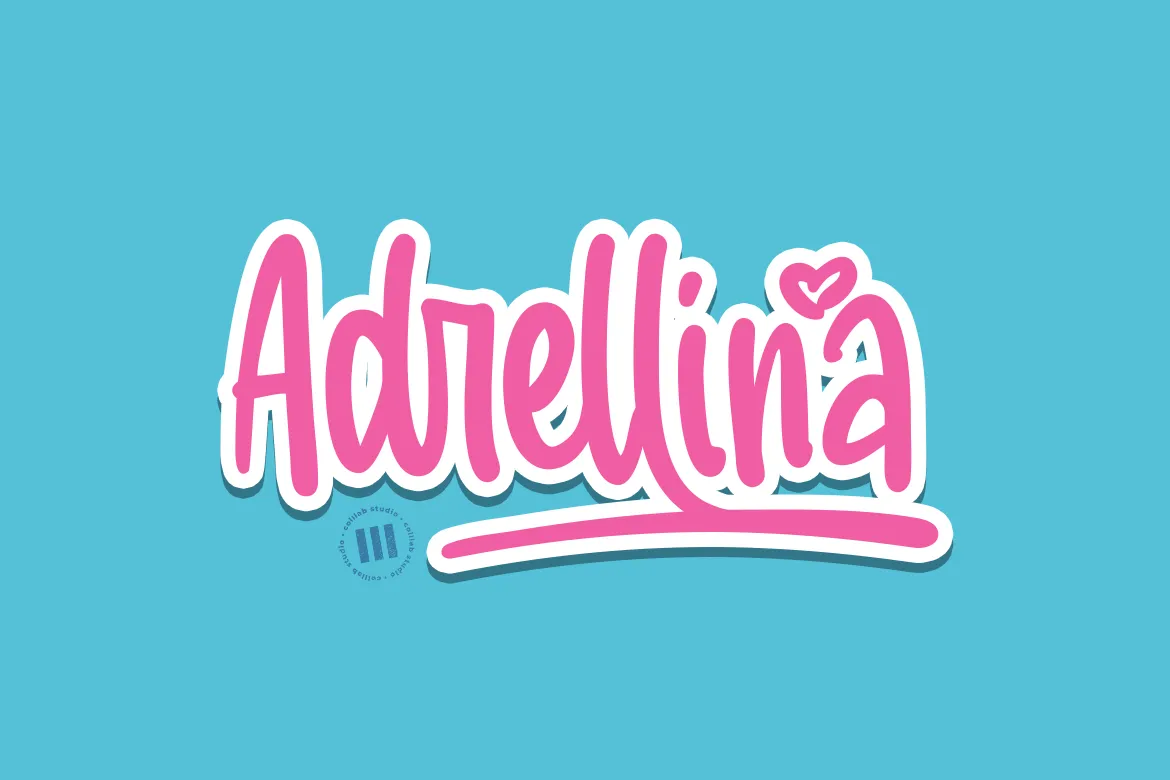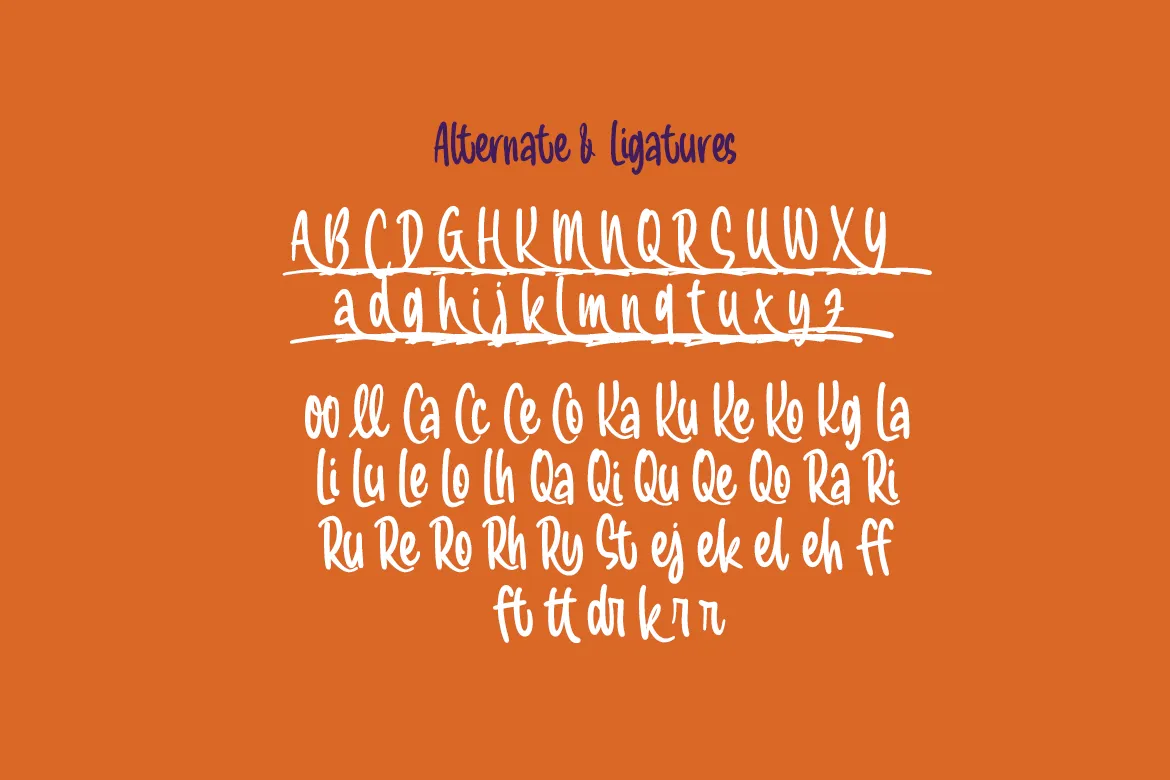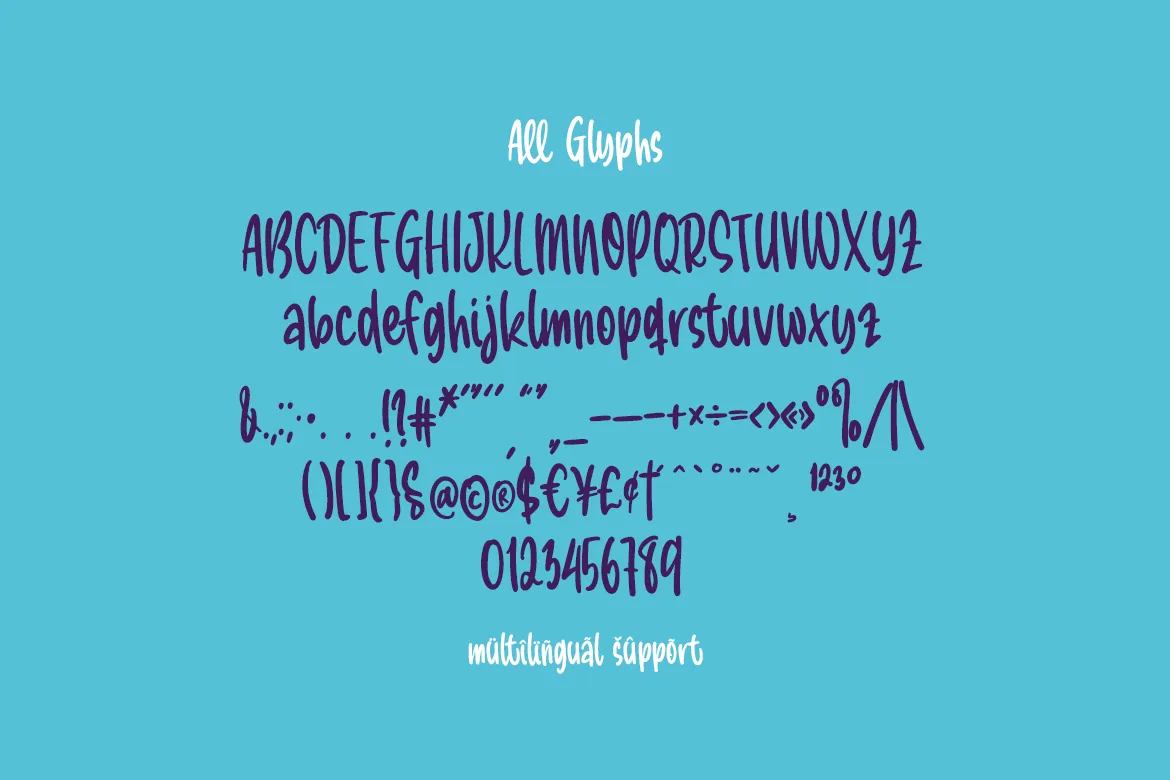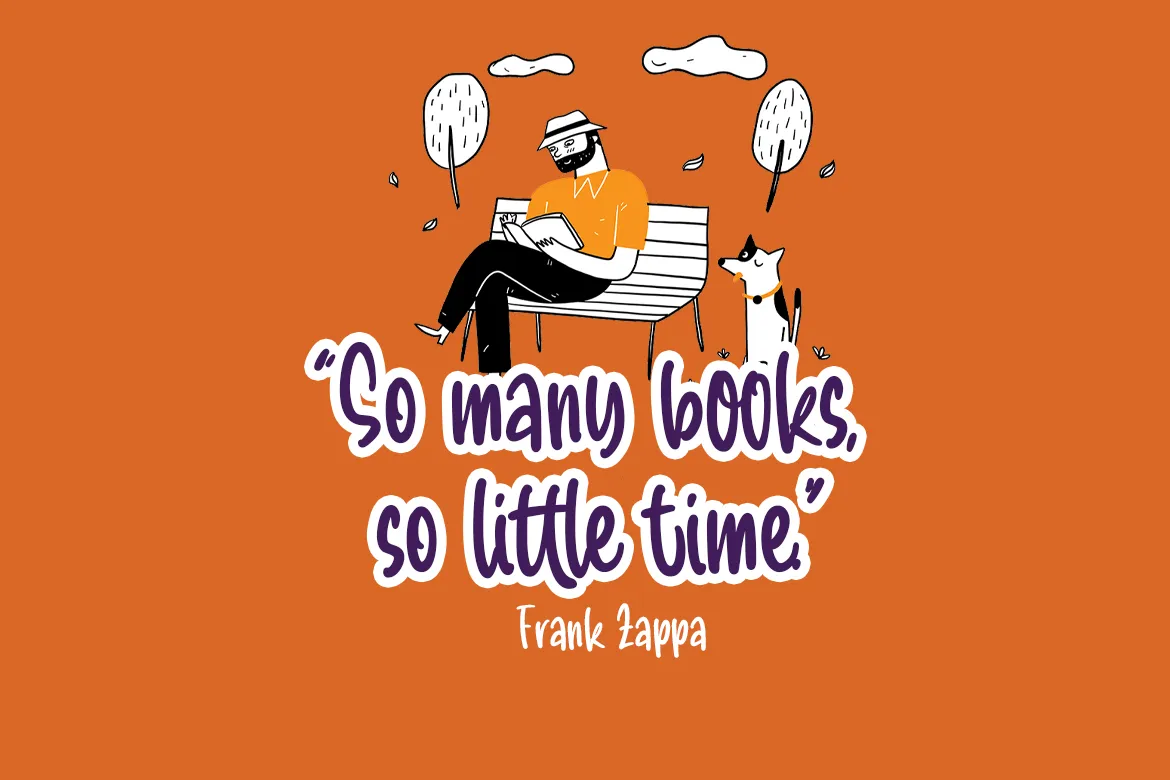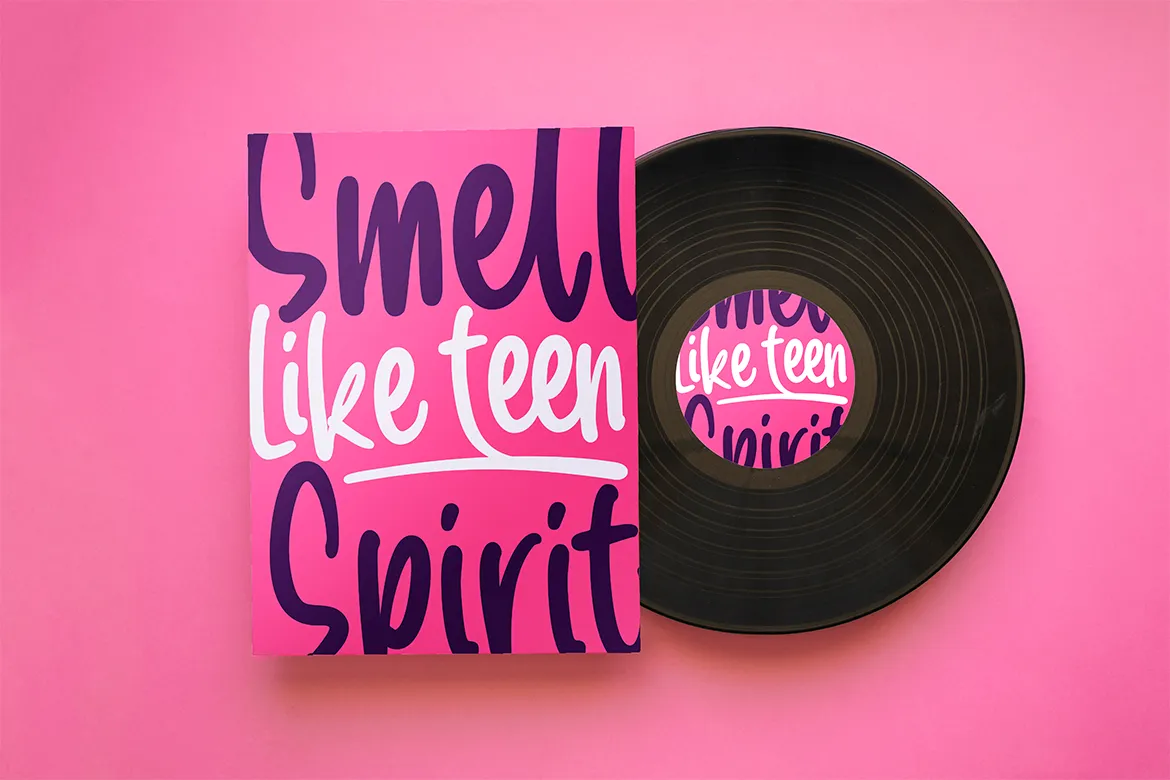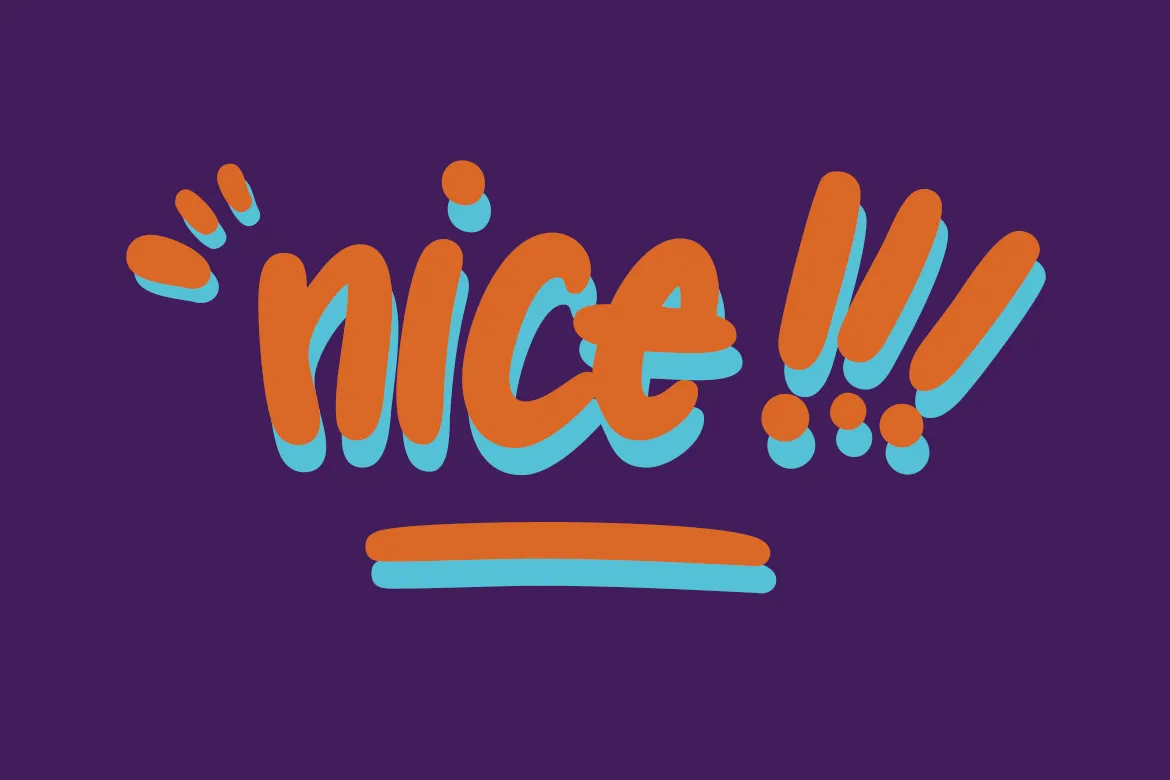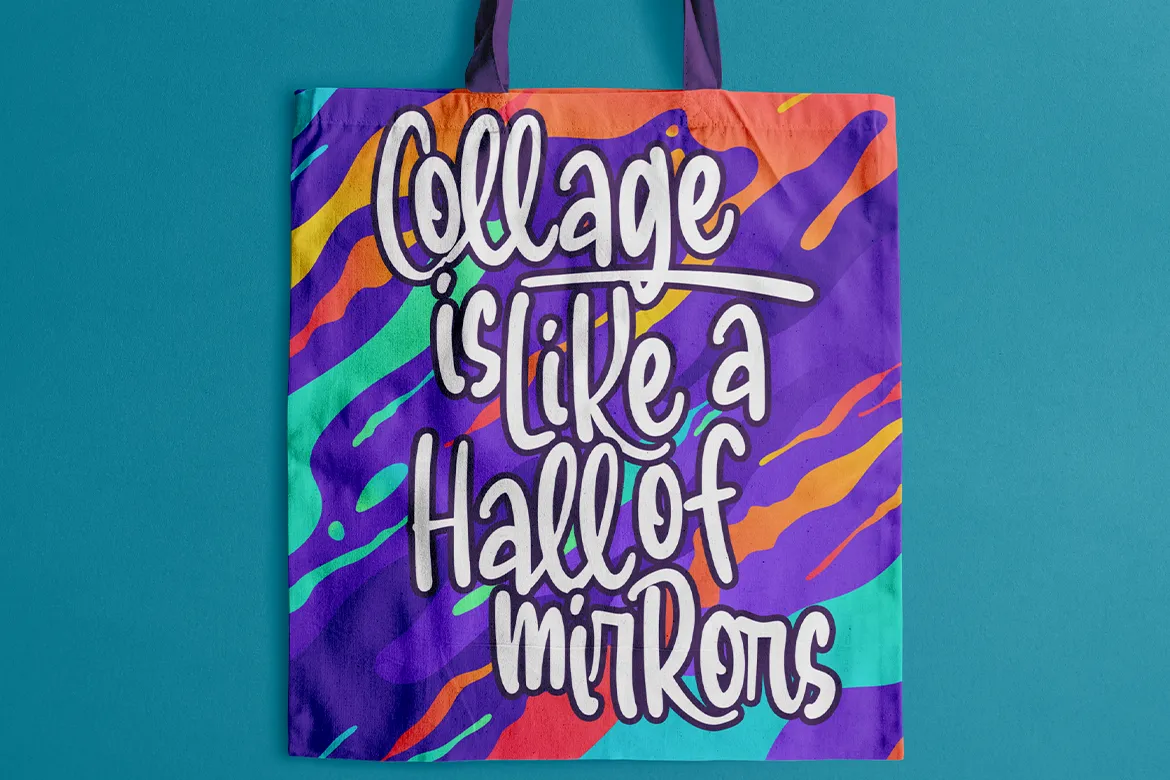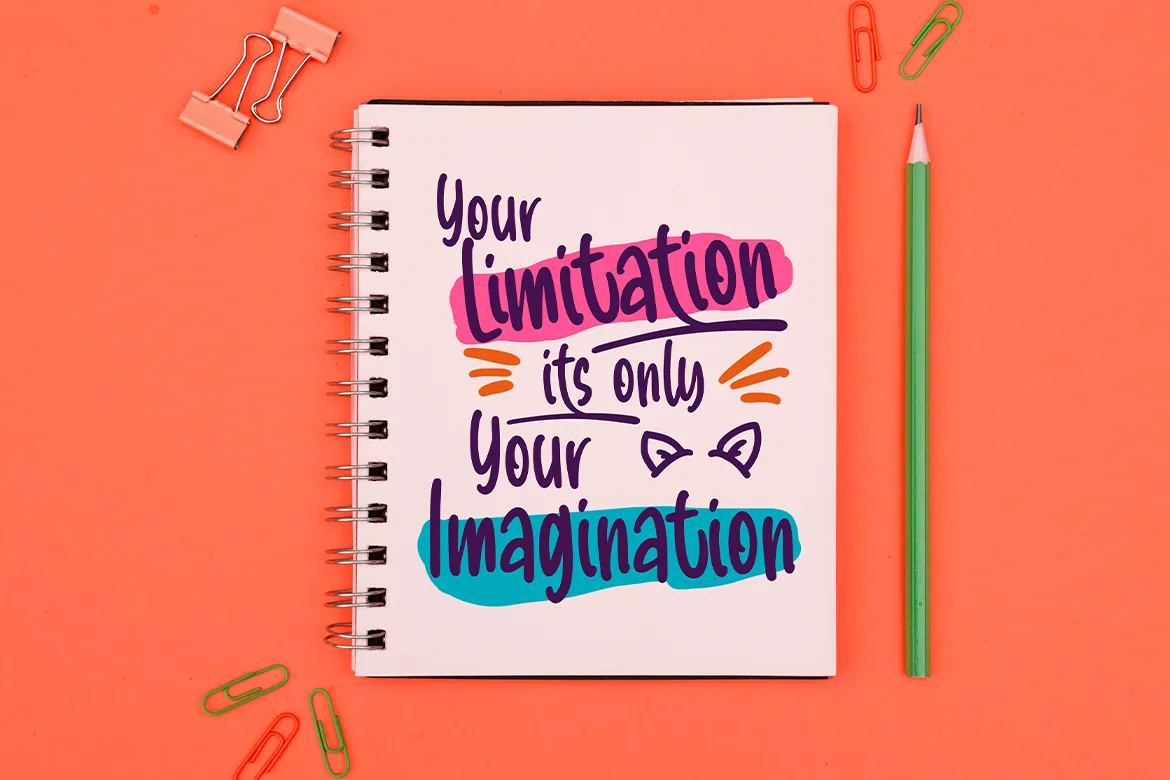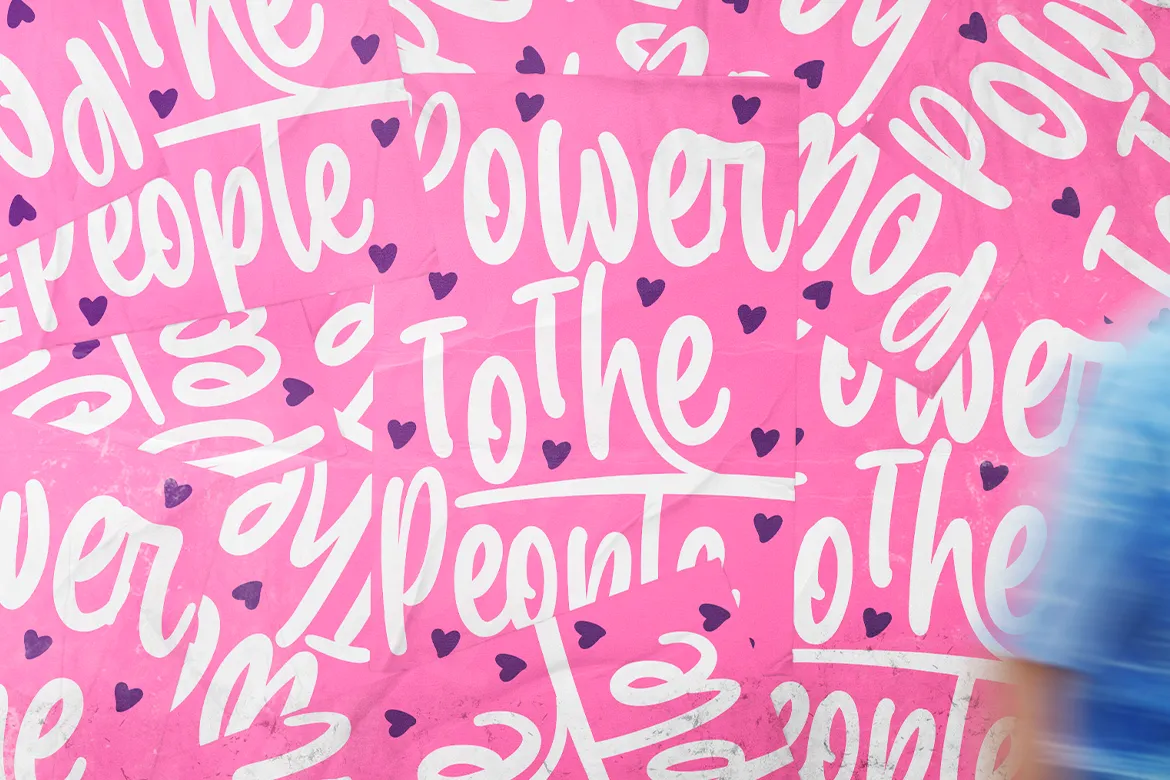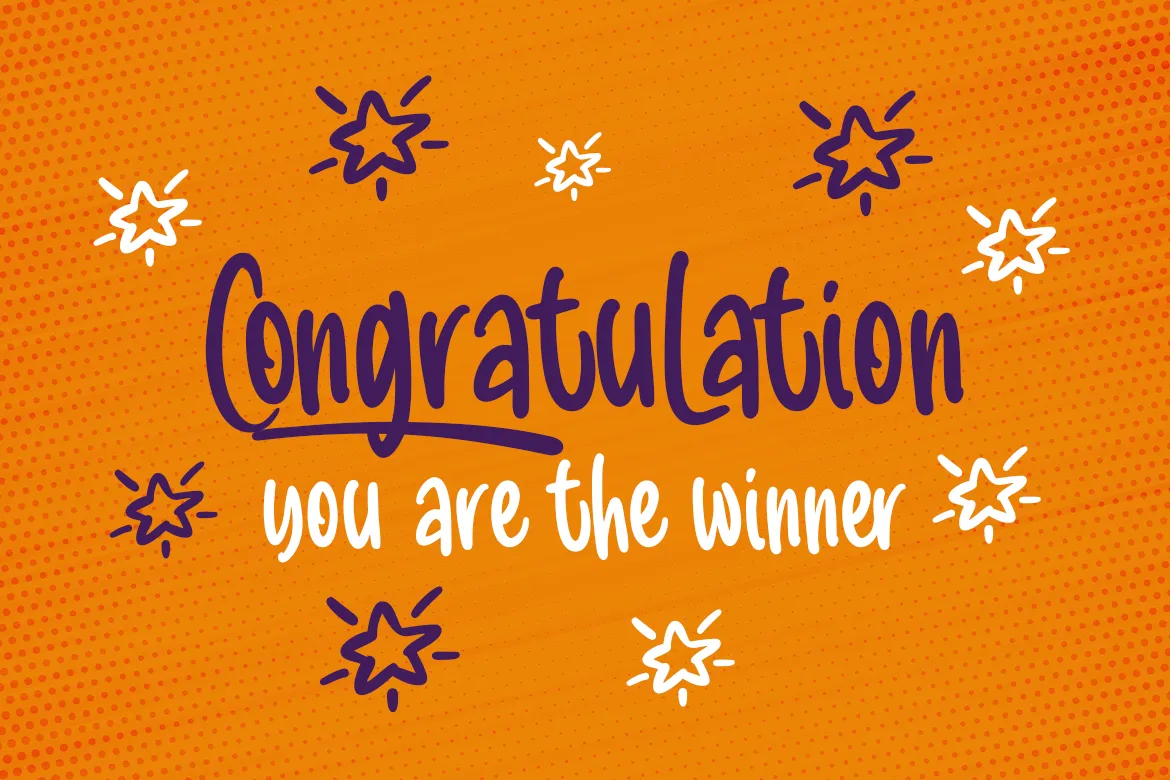
Adrellina is a bold, bouncy handwritten script that captures the feeling of fun, joy, and youthful energy. Its rounded strokes, flowing rhythm, and cheerful personality make it a perfect choice for branding, packaging, social media graphics, and anything that calls for a friendly yet stylish handwritten touch. Whether you’re designing for fashion, lifestyle, or playful product lines, Adrellina brings a spark of personality to every project.
Inspiration behind the font
The idea for Adrellina came from the spontaneous charm of handwritten notes mixed with the playfulness of modern lettering trends. The goal was to create a script that feels personal and approachable but also polished enough for commercial use. Inspired by doodles, casual journaling, and street-style hand lettering, Adrellina balances raw energy with carefully crafted details—resulting in a typeface that feels authentic, fun, and full of life.
Key Features
319 glyphs that provide extensive creative freedom
59 ligatures for natural-looking letter connections and smoother flow
Stylistic alternates to mix and match, giving you endless variations in your lettering
Uppercase & lowercase letters with consistent rhythm and personality
Multilingual support to expand your reach beyond English-speaking audiences
Perfect for logos, headlines, packaging, quotes, and posters, where playful energy is needed
Works beautifully with vibrant color palettes, sticker-style graphics, and fun branding concepts